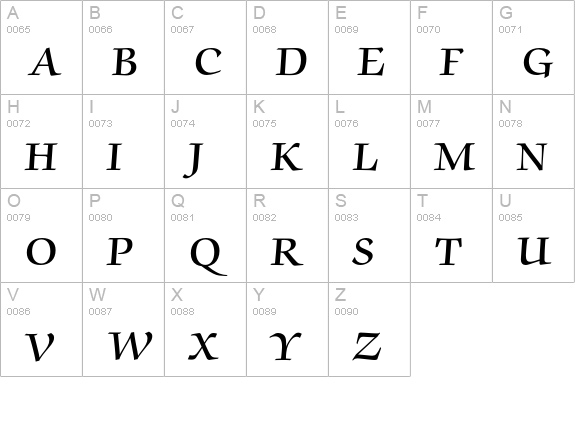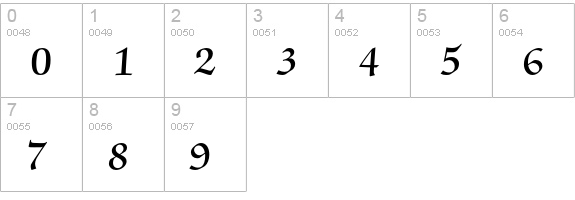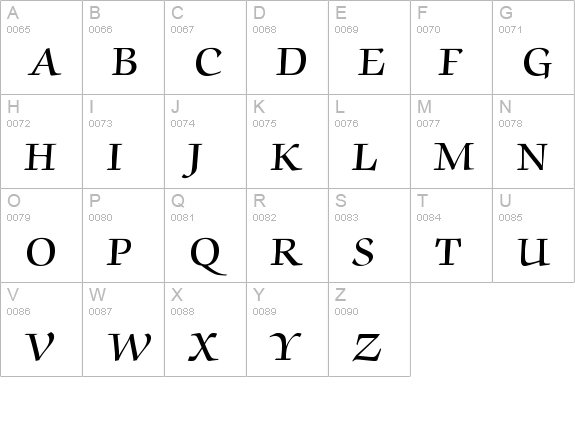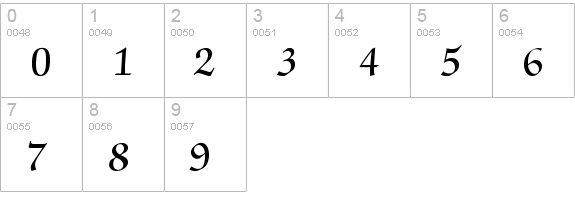
ZapfChanceryEF-Demi is a sub-bold, structured variant in the ZapfChanceryEF typeface family \xE2\x80\x94 well suited to sub-headlines and emphasised passages.
ZapfChanceryEF-Demi font is a unique and elegant typeface that exudes sophistication and charm. Its bold and graceful letterforms make it perfect for a wide range of design projects, from invitations to branding materials. This font is ideal for adding a touch of class and refinement to your work. The best part is that ZapfChanceryEF-Demi font is available for free download at FontsMarket.com. This means you can easily access this stunning typeface and use it in your projects without any cost. Don't miss out on the opportunity to enhance your designs with the beauty of ZapfChanceryEF-Demi font. Download it today and elevate your creations to the next level.